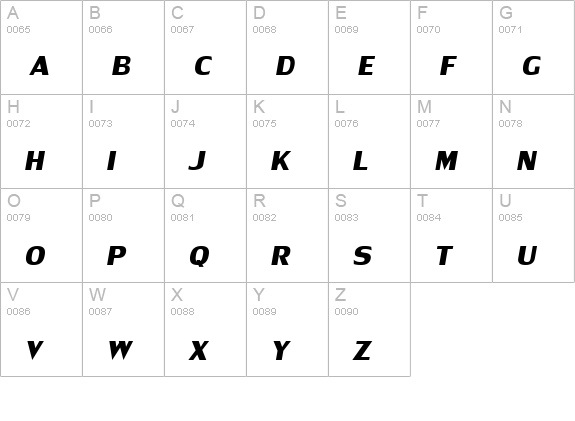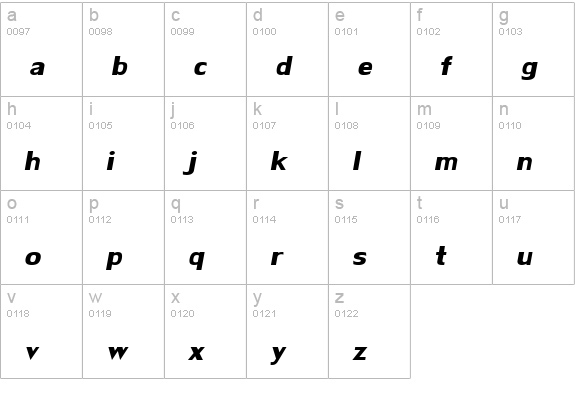
LilyUPC Bold Italic is a strong, high-contrast, italic variant in the LilyUPC typeface family \xE2\x80\x94 well suited to headlines, attention-grabbing titles, and strong calls-to-action.
LilyUPC Bold Italic font is a striking and versatile typeface that combines boldness with elegance. With its strong and slanted design, this font exudes confidence and sophistication, making it perfect for a wide range of projects including branding, advertising, and editorial design. The bold strokes and italicized style of LilyUPC Bold Italic create a dynamic and eye-catching look that is sure to make a statement. Best of all, LilyUPC Bold Italic font is available for free download at FontsMarket.com. This means that you can easily access this beautiful and impactful font without any cost, making it a valuable addition to your font collection. Whether you're a designer looking to add a bold touch to your projects or a business owner in need of a strong and stylish font for your branding, LilyUPC Bold Italic is the perfect choice. Download it today and elevate your designs with this stunning typeface.